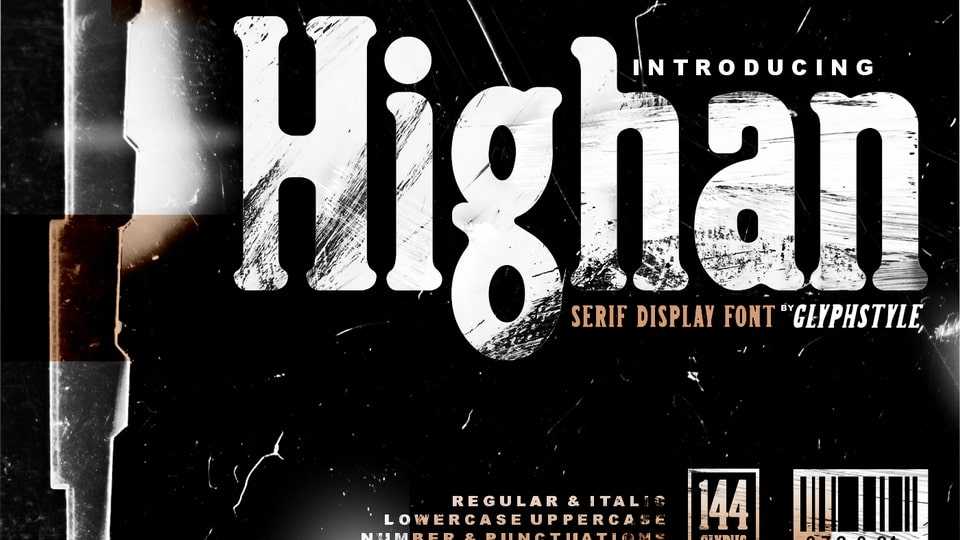
Download Highan font, a non-rigid serif display typeface. The display has blunt angles, so the letters look smooth without leaving the impression of a firm serif font.